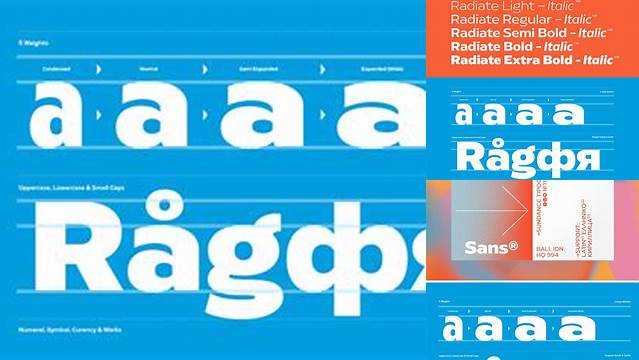
Are you a design enthusiast or a content creator looking for that perfect font to elevate your work? Well, you've landed in the right spot! In this comprehensive guide, we're diving deep into the world of Radiate Sans font, a typeface known for its clean lines and modern aesthetic. We'll explore everything from its unique characteristics and ideal use cases to where you can snag a free download and how to make the most of it in your projects. So, buckle up, guys, and let's get started!
What Makes Radiate Sans Font So Special?
When it comes to typography, the choice of font can significantly impact the overall look and feel of your design. Radiate Sans font is a versatile typeface that strikes a beautiful balance between modernity and readability. Its clean, geometric forms make it an excellent choice for a wide range of applications, from website headers and body text to branding materials and print publications. One of the key aspects that sets Radiate Sans font apart is its neutral yet sophisticated character. Unlike more stylized or decorative fonts, Radiate Sans doesn't scream for attention. Instead, it quietly enhances the message you're trying to convey, allowing your content to take center stage. This makes it particularly well-suited for projects where clarity and professionalism are paramount.
The versatility of Radiate Sans font is another major selling point. It comes in a variety of weights and styles, from thin and light to bold and heavy, giving you plenty of options to play with. This flexibility allows you to create visual hierarchy and add emphasis to key elements within your design. For instance, you might use a bold weight for headings and a lighter weight for body text to improve readability and create a clear visual distinction. The font's clean lines and simple shapes also make it highly legible across different screen sizes and resolutions. This is crucial in today's digital landscape, where content is consumed on a multitude of devices, from smartphones and tablets to laptops and desktop computers. A font that looks great on a large monitor but becomes blurry or distorted on a smaller screen is simply not practical. Radiate Sans font avoids this pitfall, ensuring that your message remains clear and impactful regardless of the viewing device. Moreover, Radiate Sans font often includes a comprehensive character set, encompassing a wide range of glyphs, symbols, and language support. This is particularly important if you're working on international projects or need to accommodate specific typographic requirements. A well-equipped font family ensures that you have the tools you need to create professional and polished designs, no matter the context. In terms of aesthetic appeal, Radiate Sans font exudes a contemporary vibe that aligns well with current design trends. Its clean, uncluttered appearance makes it a natural fit for minimalist designs, corporate branding, and modern websites. However, its versatility also allows it to be incorporated into more traditional or eclectic designs, providing a touch of understated elegance.
Ideal Use Cases for Radiate Sans Font
Now that we've explored what makes Radiate Sans font special, let's delve into some specific scenarios where it truly shines. This font is a workhorse, adaptable to a myriad of design needs, but there are certain areas where its strengths are particularly evident. One of the most common applications for Radiate Sans font is in website design. Its clean lines and excellent readability make it an ideal choice for both headings and body text. A website's typography plays a crucial role in user experience; a font that is difficult to read or visually jarring can quickly turn visitors away. Radiate Sans font helps to avoid this issue by providing a clear and comfortable reading experience. Its neutral aesthetic also ensures that it doesn't clash with other design elements, allowing your content and visuals to take center stage.
In the realm of branding, Radiate Sans font can be a valuable asset. A consistent brand identity relies heavily on typography, and choosing the right font can help to convey your brand's personality and values. Radiate Sans font's modern and professional appearance makes it well-suited for companies that want to project an image of competence, reliability, and innovation. It can be used across a wide range of branding materials, from logos and business cards to brochures and marketing collateral. Its versatility allows it to adapt to different contexts while maintaining a cohesive brand identity. Another area where Radiate Sans font excels is in print design. Whether you're creating a magazine layout, a book cover, or a poster, the font's legibility and clean lines ensure that your text remains clear and impactful. In print, the nuances of typography become even more apparent, and a well-chosen font can make all the difference. Radiate Sans font's balanced letterforms and ample spacing contribute to a pleasant reading experience, even in long-form text. In addition to these core applications, Radiate Sans font can also be effectively used in presentations, reports, and other types of documents. Its professional appearance lends a sense of credibility to your work, while its readability ensures that your message is easily understood. In the digital realm, it's an excellent choice for user interfaces, mobile apps, and email newsletters. Its clean aesthetic aligns well with the minimalist design principles that are often favored in these contexts. Ultimately, the ideal use cases for Radiate Sans font are those that require a typeface that is both versatile and highly legible. Its ability to adapt to different styles and contexts makes it a valuable tool for designers and content creators across a wide range of disciplines. Whether you're working on a cutting-edge website, a corporate branding project, or a printed publication, Radiate Sans font can help you to achieve a polished and professional result.
Tips for Effectively Using Radiate Sans Font in Your Designs
Okay, so you've got your hands on Radiate Sans font – awesome! But now the real fun begins: putting it to work in your designs. Simply having a great font isn't enough; you need to know how to use it effectively to achieve the desired impact. Here are some tips and tricks to help you make the most of Radiate Sans font in your projects. First and foremost, consider the context. The way you use a font should always be informed by the overall design and the message you're trying to convey. Radiate Sans font is a versatile typeface, but it's not a one-size-fits-all solution. Think about the tone and style of your design, and make sure the font aligns with that. For example, if you're designing a website for a tech startup, Radiate Sans font's modern and clean aesthetic might be a perfect fit. However, if you're working on a more traditional or artistic project, you might want to explore other options or use Radiate Sans font in a more subtle way.
Hierarchy is key when it comes to typography. Use different weights and sizes of Radiate Sans font to create a clear visual hierarchy within your design. This helps to guide the viewer's eye and make your content more scannable. For example, you might use a bold weight for headings, a medium weight for subheadings, and a regular weight for body text. Varying the size of the font can also help to emphasize important elements and create a sense of visual interest. Pairing fonts is another crucial aspect of effective typography. While Radiate Sans font can certainly stand on its own, combining it with another typeface can add depth and personality to your design. When choosing a font to pair with Radiate Sans font, look for typefaces that complement its clean lines and neutral aesthetic. A classic serif font, such as Times New Roman or Georgia, can create a sophisticated and balanced look. Alternatively, you might pair Radiate Sans font with a more quirky or expressive sans-serif font to add a touch of contrast and playfulness. Experiment with different combinations to see what works best for your specific project. Pay attention to spacing and legibility. No matter how beautiful a font is, it won't be effective if it's difficult to read. Ensure that your text is properly spaced and that there is enough contrast between the text and the background. Adjust the leading (the space between lines of text) and the kerning (the space between individual letters) to optimize readability. A good rule of thumb is to err on the side of generosity when it comes to spacing; text that is too tightly packed can be overwhelming and off-putting. Don't be afraid to experiment. Typography is both a science and an art, and there's no substitute for hands-on experimentation. Try using Radiate Sans font in different sizes, weights, and styles to see what effects you can achieve. Play with different color combinations, and don't be afraid to break the rules. The most important thing is to create a design that is both visually appealing and effective at communicating your message. Consider the medium. The way you use Radiate Sans font might differ depending on whether you're designing for print or the web. For example, fonts that look great on a computer screen might not translate well to a printed page, and vice versa. When designing for the web, make sure to choose a font size that is large enough to be easily read on different devices. You should also consider using web-safe fonts, which are fonts that are commonly installed on most computers and devices. This will help to ensure that your design looks consistent across different platforms. By following these tips, you can effectively use Radiate Sans font to create professional and visually appealing designs. Remember, the key is to consider the context, prioritize legibility, and don't be afraid to experiment.
Radiate Sans Font: A Recap and Final Thoughts
So, guys, we've journeyed through the world of Radiate Sans font, exploring its unique qualities, ideal use cases, and where to find it for free. We've also delved into some essential tips for effectively incorporating this versatile typeface into your designs. Let's take a moment to recap the key takeaways and offer some final thoughts on this fantastic font. Radiate Sans font stands out for its clean, modern aesthetic and exceptional versatility. Its neutral yet sophisticated character makes it an excellent choice for a wide range of applications, from website design and branding to print publications and presentations. Its balanced letterforms and ample spacing contribute to a pleasant reading experience, while its various weights and styles provide ample flexibility for creating visual hierarchy and adding emphasis. One of the key strengths of Radiate Sans font is its adaptability. It can seamlessly integrate into minimalist designs, corporate branding, and modern websites, while also lending a touch of understated elegance to more traditional or eclectic projects. This versatility makes it a valuable tool for designers and content creators across a variety of disciplines. When it comes to finding Radiate Sans font for free, it's crucial to exercise caution and prioritize legitimate sources. Font foundries that offer free versions of their typefaces, reputable font aggregators, and resources like Google Fonts can be excellent starting points. However, always double-check the licensing terms before using a font in your projects to ensure that you're complying with the usage restrictions. Effectively using Radiate Sans font in your designs involves considering the context, creating a clear visual hierarchy, pairing it with complementary typefaces, paying attention to spacing and legibility, and experimenting with different approaches. Typography is both a science and an art, and mastering it takes practice and attention to detail. However, with the right knowledge and a willingness to experiment, you can create designs that are both visually appealing and effective at communicating your message. In conclusion, Radiate Sans font is a typeface that deserves a place in every designer's toolkit. Its clean lines, versatility, and readability make it a valuable asset for a wide range of projects. Whether you're crafting a cutting-edge website, developing a cohesive brand identity, or designing a printed publication, Radiate Sans font can help you to achieve a polished and professional result. So, go ahead, download it, experiment with it, and let it radiate its beauty across your designs!